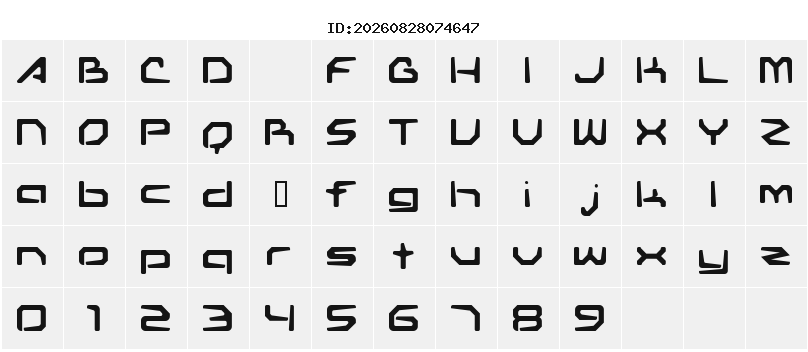
Transformer Preview
• Font Name: Transformer
• Font Style: Demo
• Font ID: Altsys Fontographer 4.0.3 Transformer Demo
• Full Font Name: Transformer Demo
• Version: Altsys Fontographer 4.0.3 06.09.1995
• PostScript Name: TransformerDemo
• Copyright: © 1995 Hype the Type. Designed by Stewart Hare.
About Transformer.ttf
Transformer.ttf is a modern, elegant sans-serif font designed for ultimate readability and visual harmony. Perfect for branding, headlines, web design, and print materials.